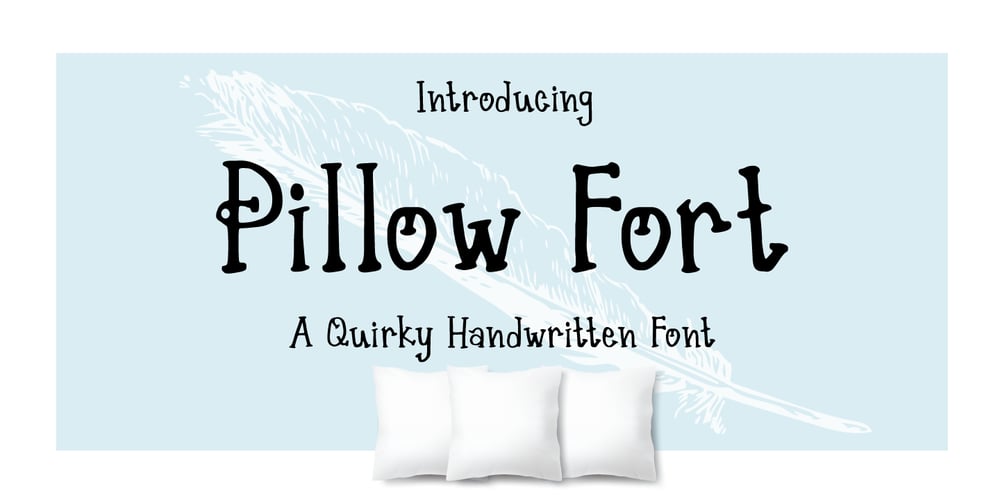
Pillow Fort Font Family was designed by Lia Almuknisa and published by Fromletterel. Pillow Fort contains 1 styles and family package options. Pillow Fort is a quirky handwritten font to energize your designs, this font really fits cute and casual concept. Others than that Pillow Fort also fits the degins that need magical fantasy vibe. This font will be suitable for branding, greeting cards, quotes and other beautiful projects.